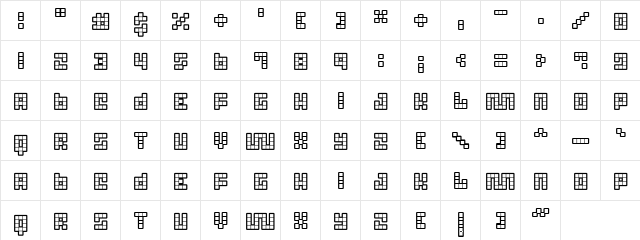
Trick Blueprint Regular
Design Context for Trick Blueprint Typeface
Trick Blueprint is a composed and adaptable typeface that performs quietly and consistently across a wide range of design contexts.